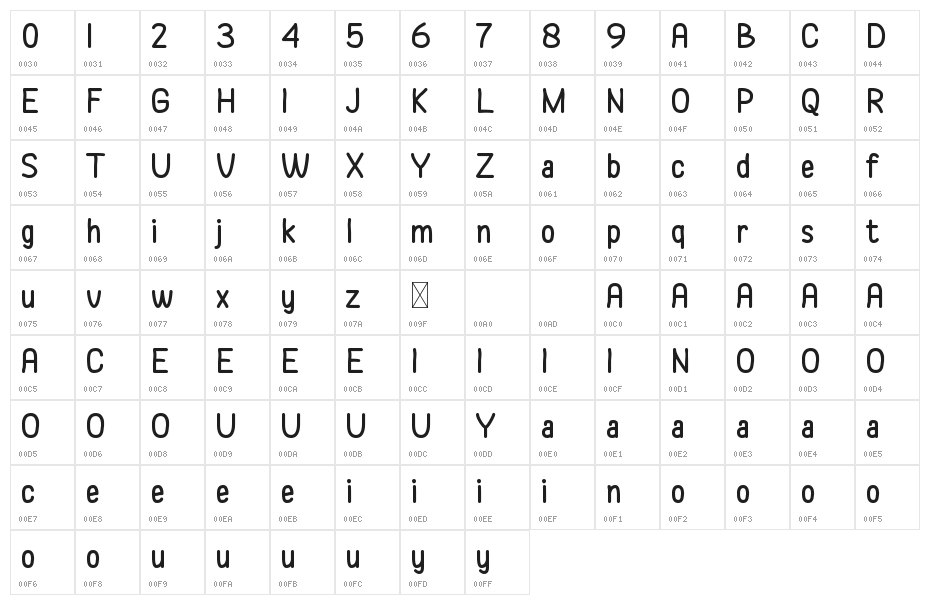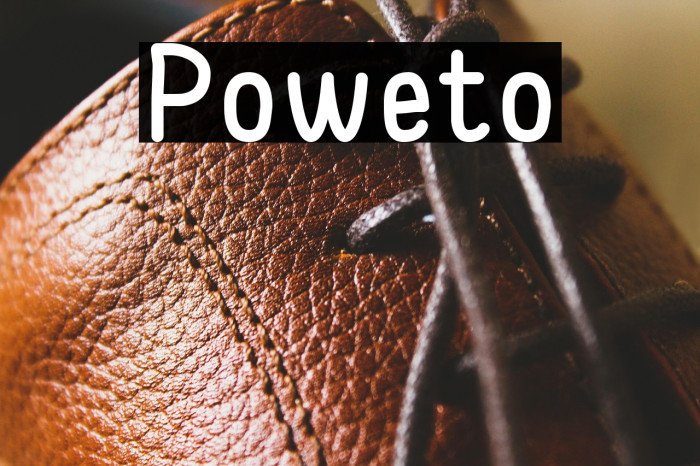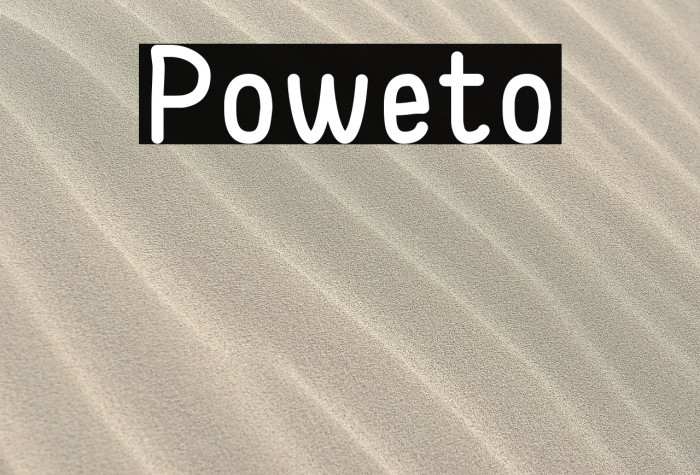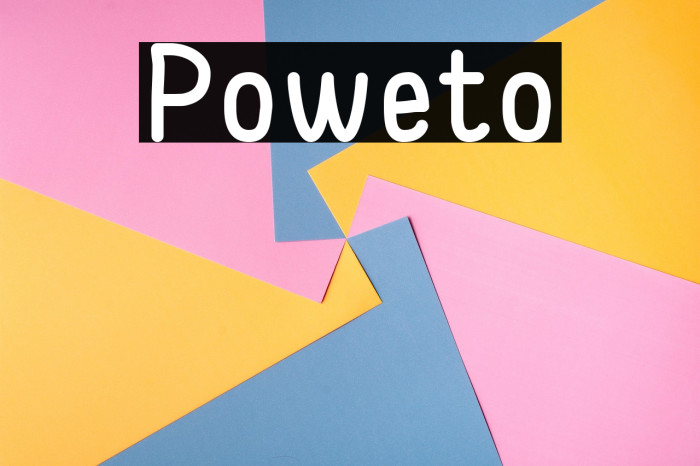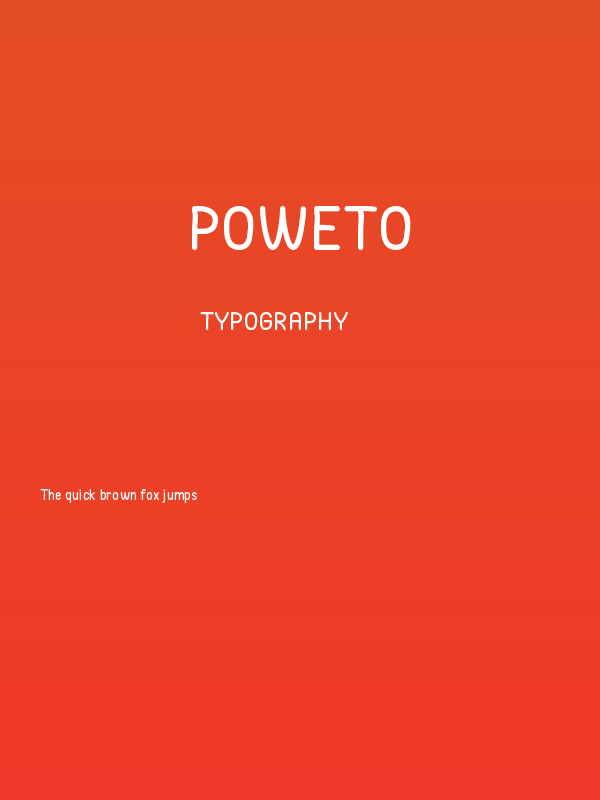
Poweto Font
Poweto Description
This font features a playful and rounded style, characterized by its smooth curves and friendly appearance. The letters are slightly elongated, giving them a unique and approachable look. The strokes are consistent in thickness, providing a uniform and cohesive feel across all characters. The font maintains a casual and informal tone, making it suitable for projects that require a touch of whimsy and approachability. Its readability is enhanced by the clear distinction between each character, ensuring legibility even at smaller sizes. The numbers and special characters follow the same design principles, integrating seamlessly with the alphabetic characters.
| Overall Style | Casual |
| Use Case | Headlines, Logos, Informal Text |
| Proposed Projects | Ideal for children's books, playful branding, casual invitations, and educational materials. |